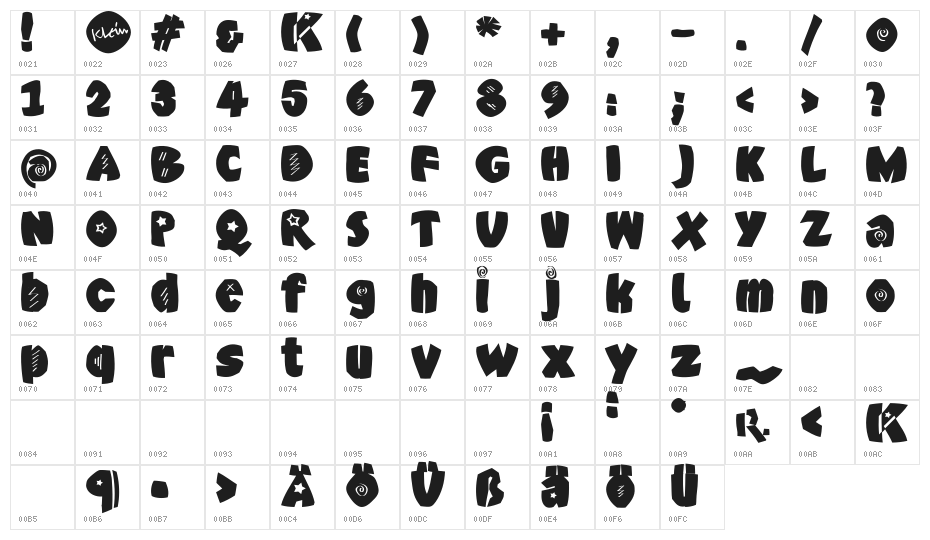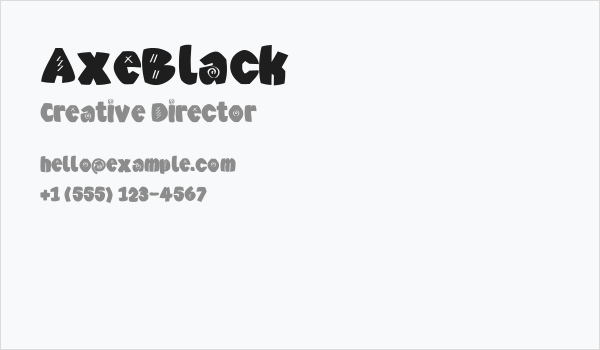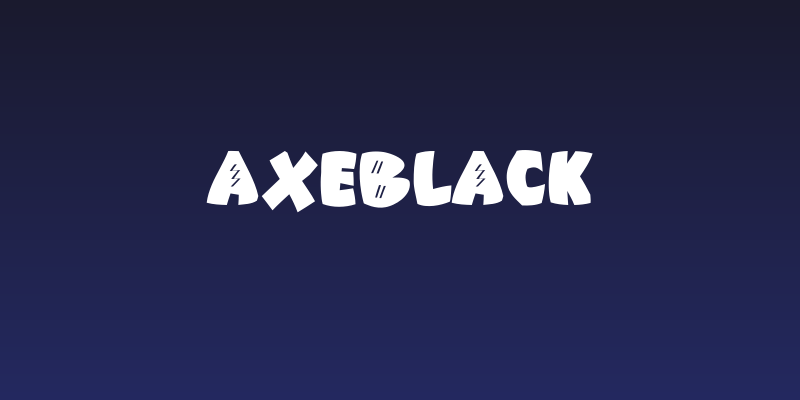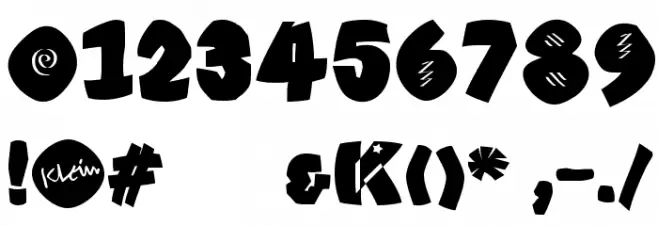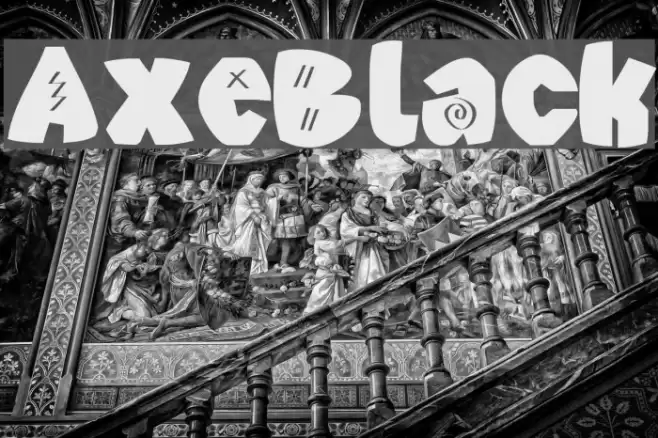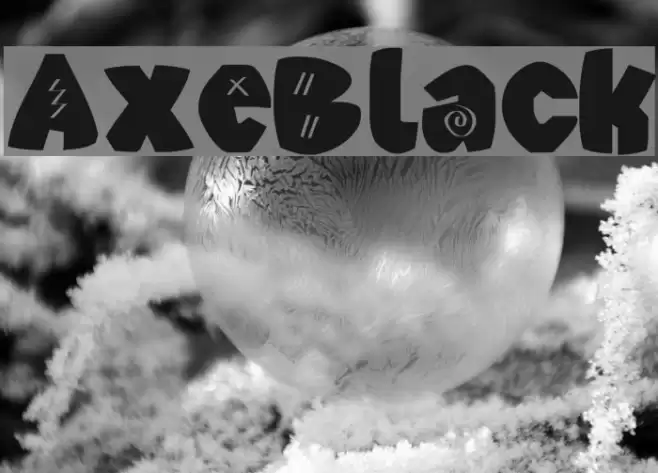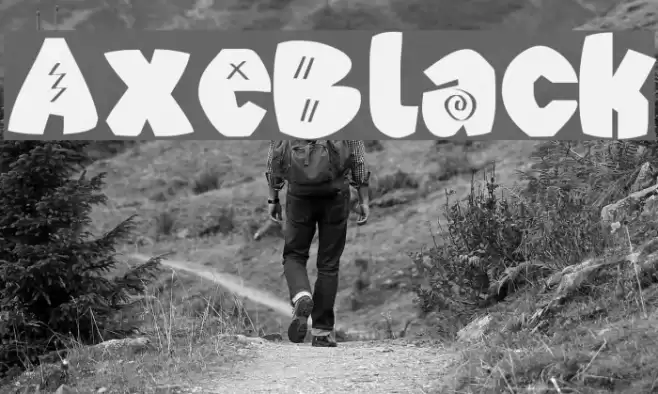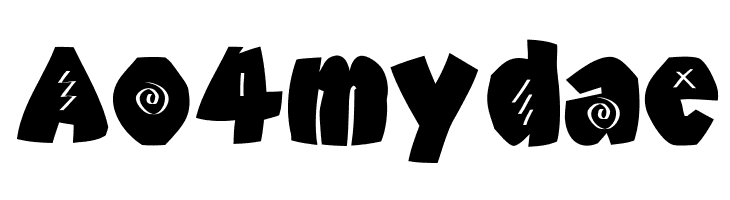
AxeBlack Font
AxeBlack Description
This font features a bold and playful design, characterized by its chunky and irregular letterforms. Each character is uniquely styled with quirky elements such as stars, spirals, and zigzags, adding a whimsical touch. The overall appearance is dynamic and eye-catching, making it suitable for creative and informal applications. The font maintains a consistent weight throughout, with wide and exaggerated strokes that enhance its boldness. The spacing between characters is relatively tight, contributing to its compact and impactful look.
| Overall Style | Playful, Whimsical |
| Proposed Projects | Ideal for children's books, playful branding, comic strips, and creative posters. |